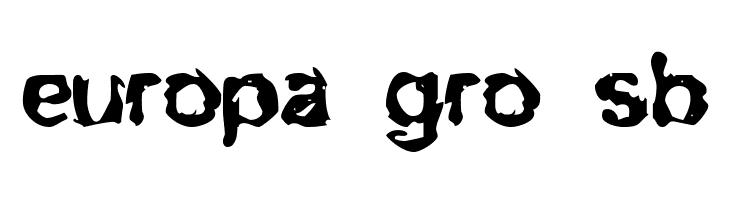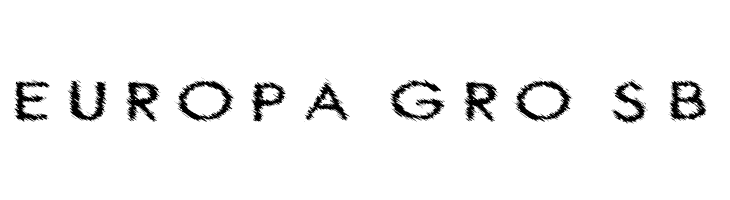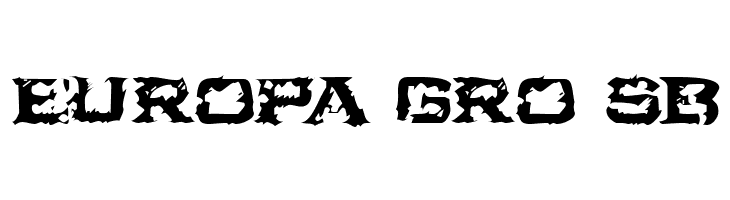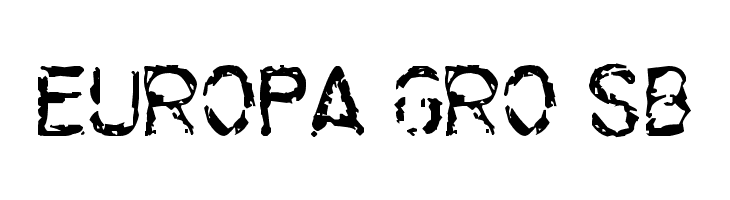
A bold, distressed font with jagged edges and a chaotic style.
A distressed, hand-drawn font with jagged edges and a rough texture.
A bold, distressed font with an urban, industrial aesthetic.
A bold, distressed font with a rugged, grunge-like appearance.
A bold, distressed font with a chaotic, grunge style.